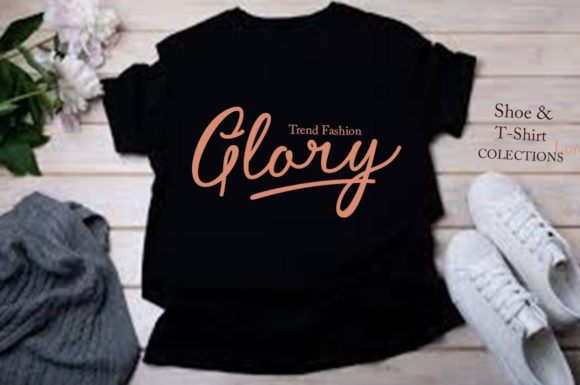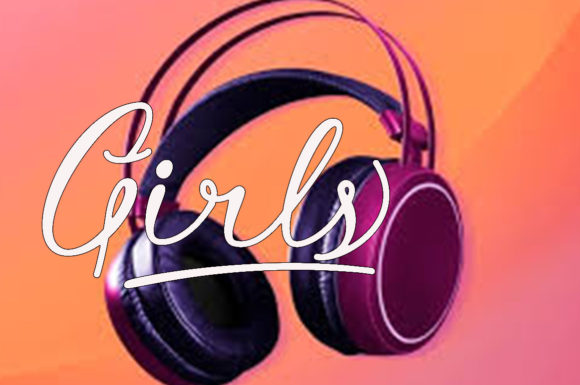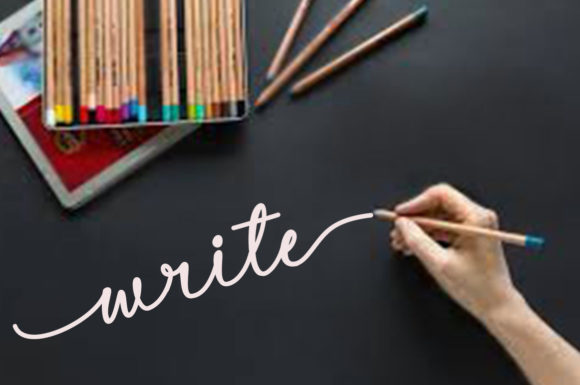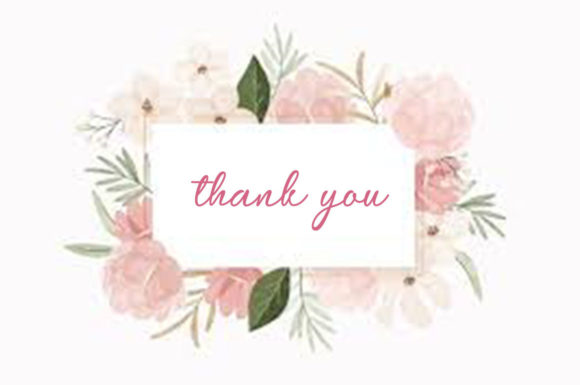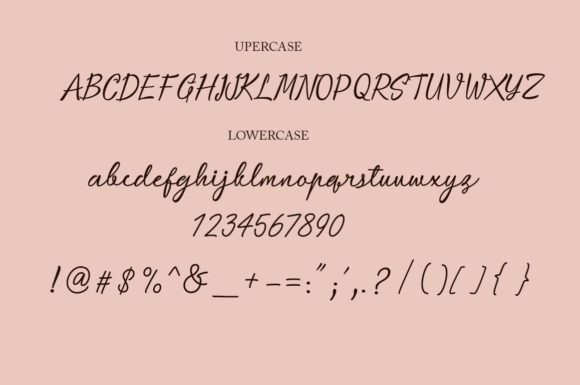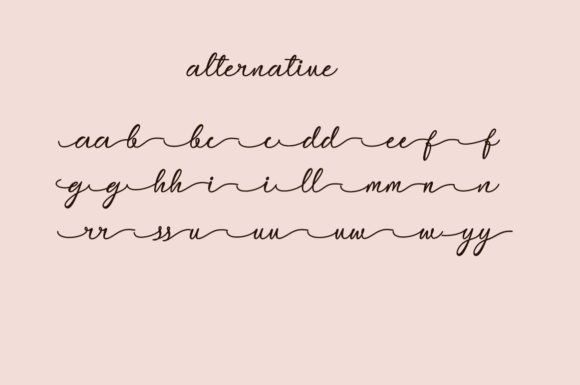
Introduction to Romance Melody Font
Romance Melody is a dainty handwritten font featuring a delicate flow.
Use it for wall displays, wedding invitations, social media post logos, advertisements, product packaging, and any project that requires impressive typography Romance Melody is PUA encoded which means you can access all glyphs and swashes with ease.
Key Features of Romance Melody Font